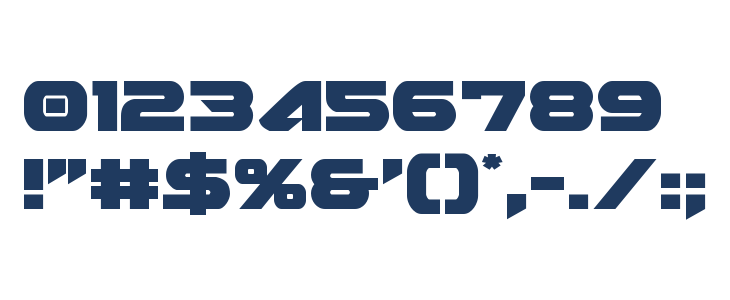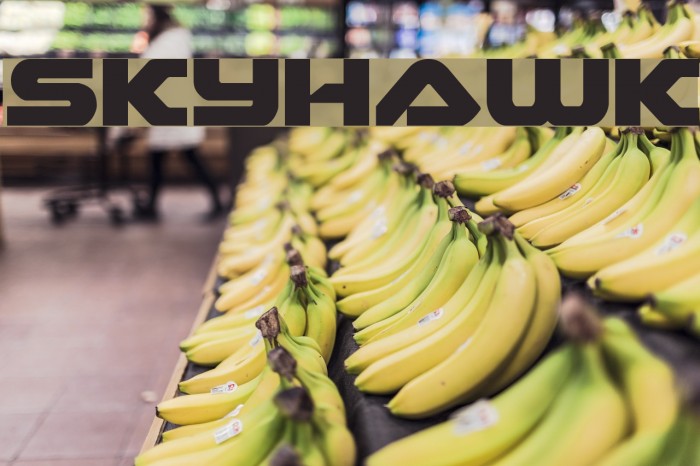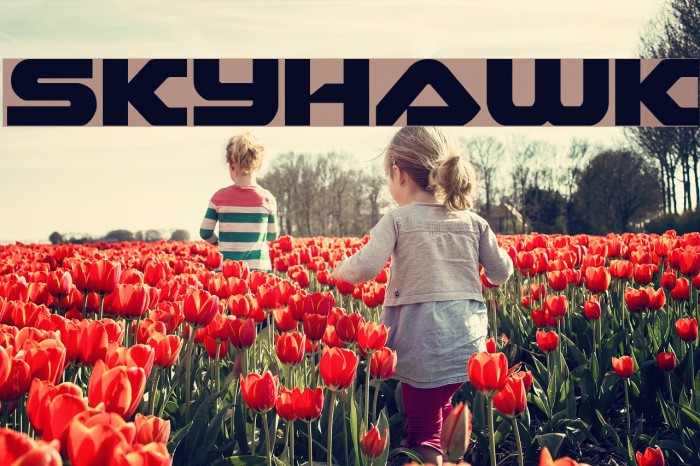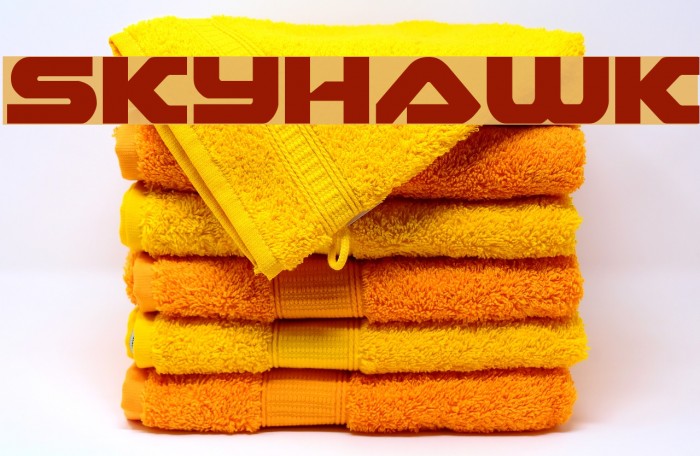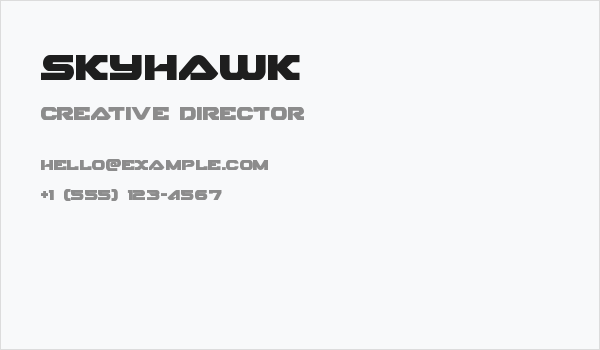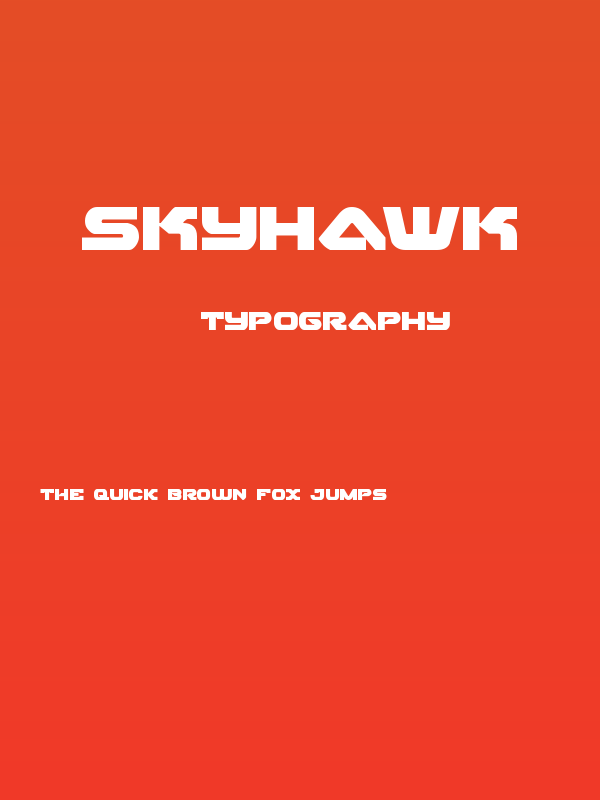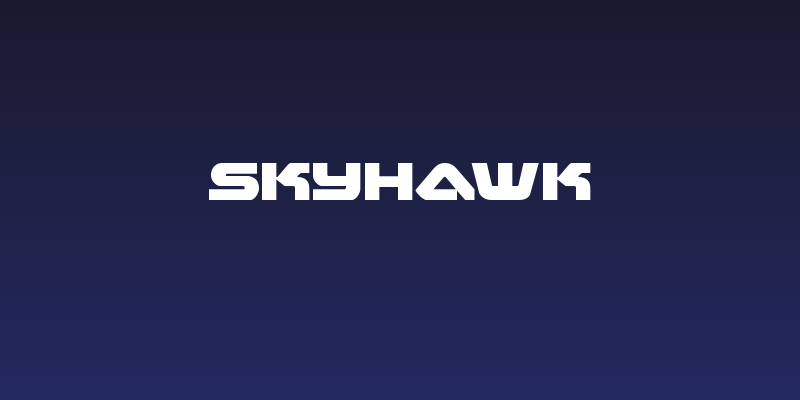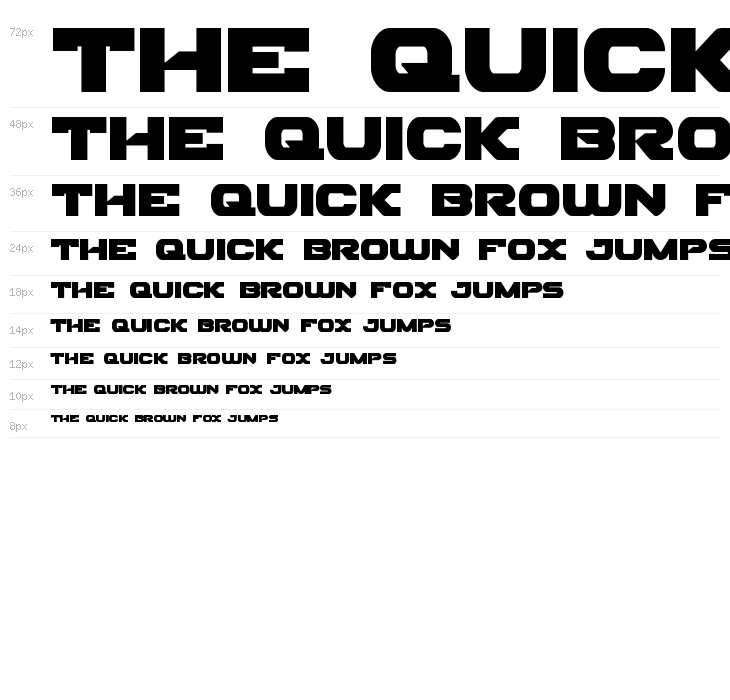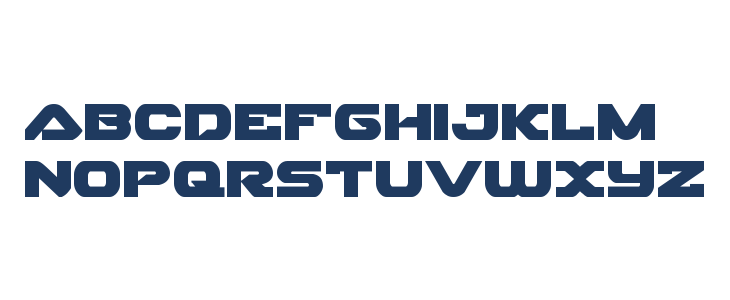
Skyhawk Font
Skyhawk Description
This font features a bold and futuristic design with a strong geometric influence. The characters are constructed with sharp angles and straight lines, giving it a modern and dynamic appearance. The uppercase letters are particularly striking, with a blocky and robust form that commands attention. The numerals and special characters maintain the same boldness, ensuring consistency across all text. This font is ideal for projects that require a strong visual impact, such as branding, advertising, and digital media. Its unique style makes it suitable for conveying a sense of innovation and forward-thinking.
| Proposed Projects | Ideal for branding, advertising, digital media, and projects needing a strong visual impact. |